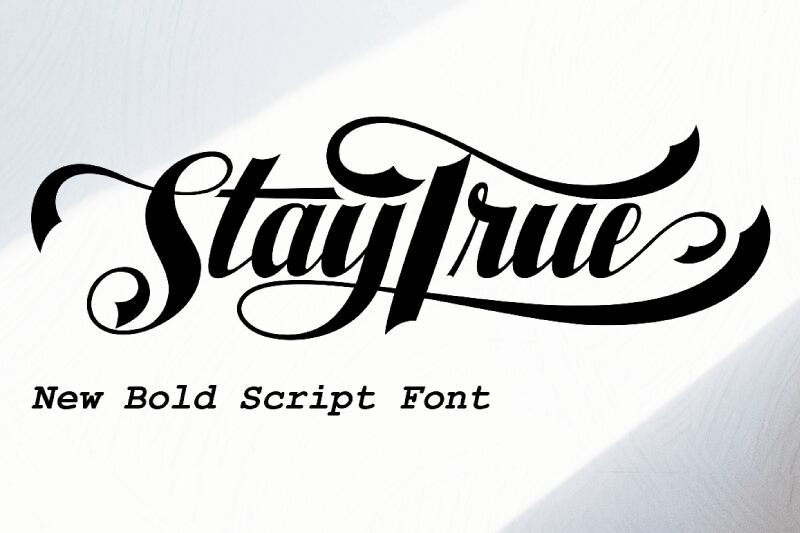
Staytrue Italic is a captivating calligraphy font designed by Miftah Arzaq. With its semi-bold weight, this font exudes elegance and sophistication, making it perfect for a wide range of projects. Its flowing strokes and intricate details lend themselves well to wedding invitations, luxury branding, and editorial design. Staytrue Italic also adds a touch of refinement to book covers, packaging designs, and greeting cards. Whether you're aiming for a romantic feel or an upscale aesthetic, this font effortlessly brings your creative vision to life with its timeless charm and graceful curves.
Miftahul Arzaq (Arzaq Studio, Arzaq Creative)